OpenAI is introducing a refreshed brand identity to reflect its incredible expansion, solidifying its position as a leader in the industry.
The AI giant's in-house design team, led by Veit Moeller and Shannon Jager, worked alongside Studio Dumbar and Berlin-based type foundry ABC Dinamo to create a new identity.
At the center of the redesign is an updated version of OpenAI's blossom logo, featuring three intertwined triangles with refined geometry.
The OpenAI wordmark will be more prominently featured moving forward.
The brand also introduced a bespoke typeface, OpenAI Sans, as part of an overarching design overhaul that includes updated global scripts and a mono version of the font, currently in development.
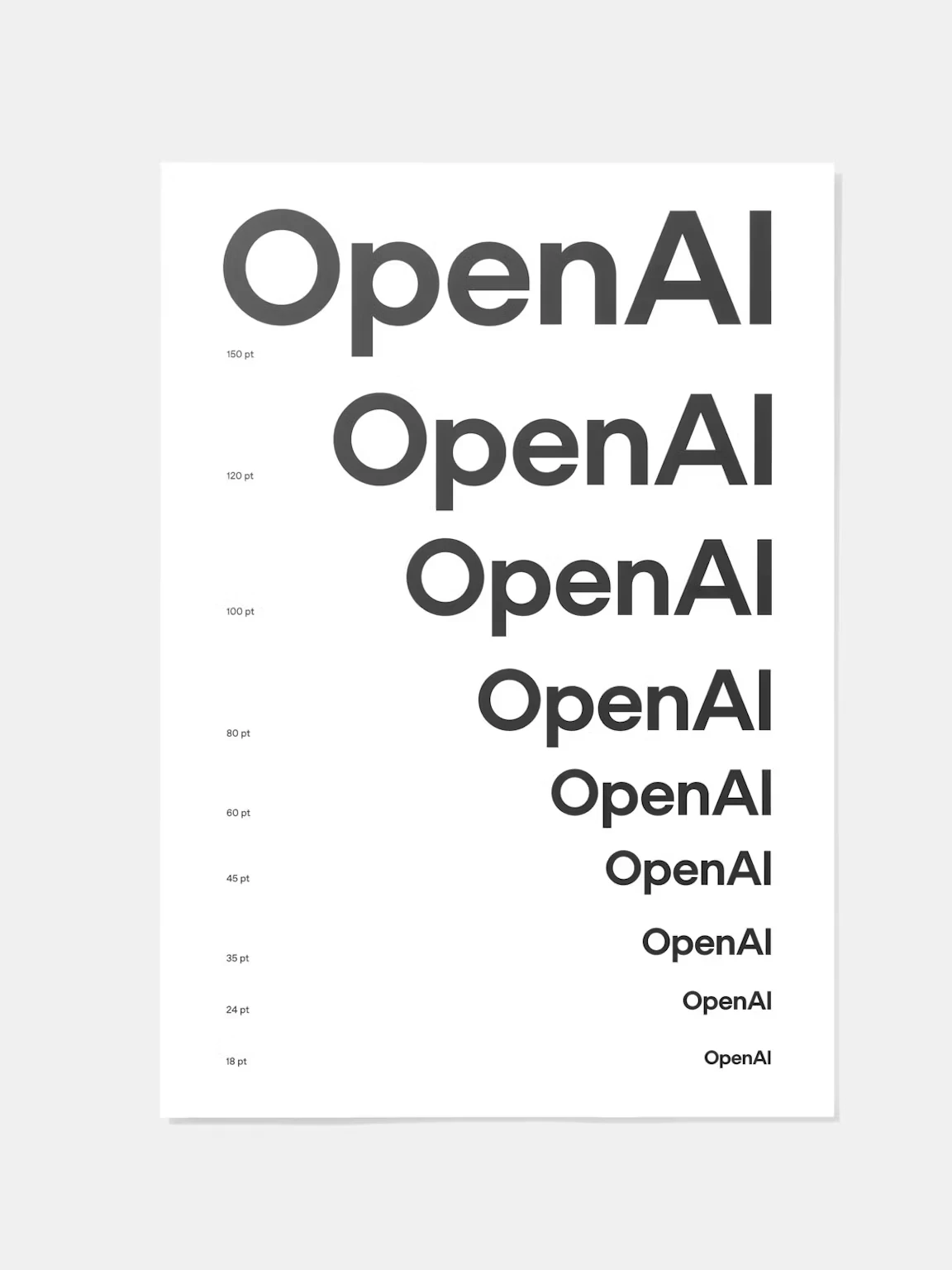
OpenAI's brand refresh underscores the need for a visual identity that evolves alongside business growth and technological advancements.
Visualizing the Future of AI
A new color palette uses greys and blues as a base, enhancing it with contrasting primary colors.
Brand imagery now emphasizes both human and AI creativity, with a mix of landscape and still-life photography complemented by patterns created by OpenAI's Sora model.
A pulsating blue disc is a new key visual element, designed to represent ChatGPT's "voice."
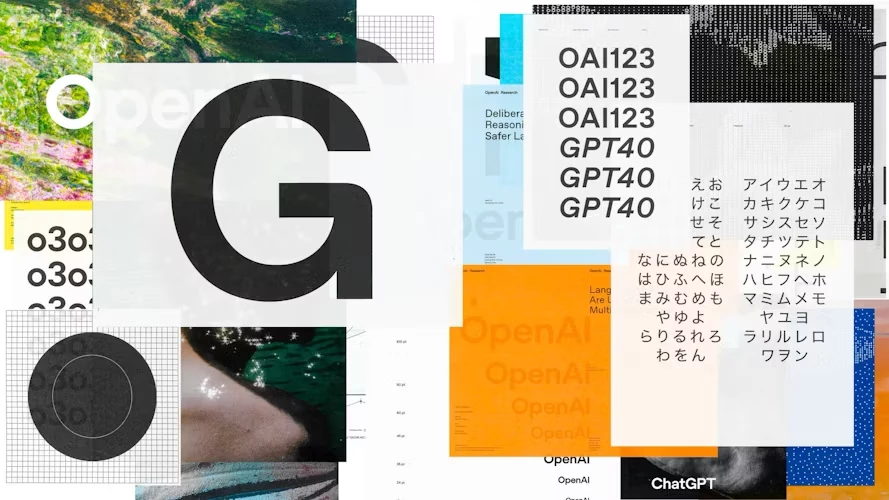
The new visual identity will appear across various products and platforms, bringing a recognizable touch to OpenAI's user experience.
It will also roll out across OpenAI's website, ChatGPT app, research papers, and even new merchandise.